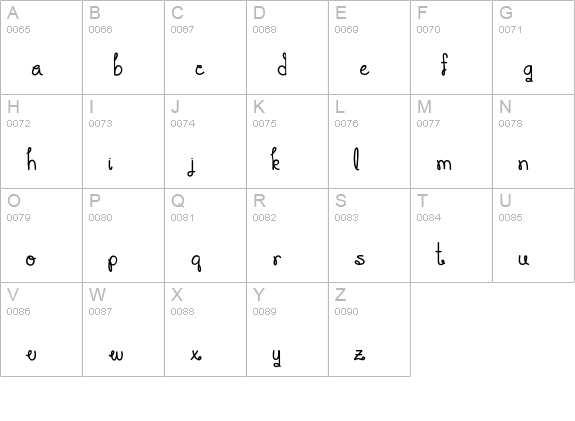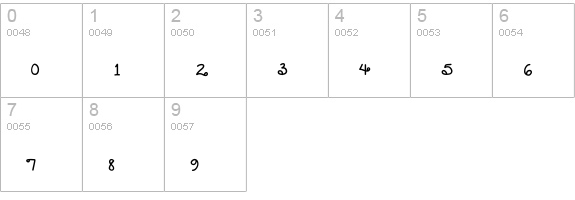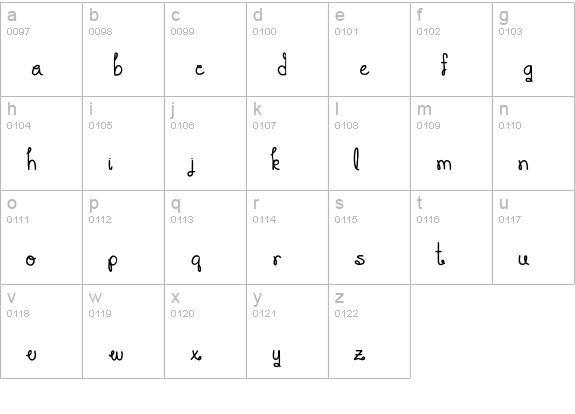
YouMakeMeSmile Font Details
Introducing YouMakeMeSmile font, a delightful and joyful typeface that is guaranteed to bring a smile to your face. This whimsical font is perfect for adding a touch of cheer to any project, whether it be a greeting card, invitation, or even a logo design. With its playful and friendly letterforms, YouMakeMeSmile font captures the essence of happiness and exudes a sense of warmth and positivity. Each character is carefully crafted to create a harmonious flow, making it a joy to read and use. But what makes YouMakeMeSmile font even more special is that it is free! Yes, you heard it right. This delightful typeface is freely available to download at FontsMarket.com. Now you can spread happiness without breaking the bank. Whether you're a designer looking to add a touch of whimsy to your creations or someone who simply wants to brighten up their everyday communications, YouMakeMeSmile font is the perfect choice. Its versatility allows it to shine in various contexts, from children's books to social media graphics. So why wait? Download YouMakeMeSmile font today and let it infuse your designs with joy and laughter. Spread smiles effortlessly with this freely available typeface from FontsMarket.com.